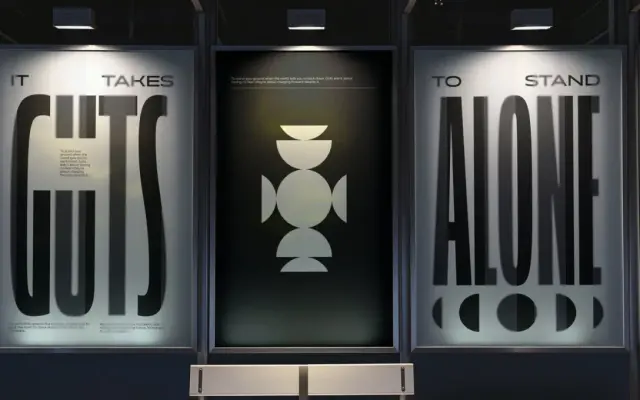
Muller Next
A large geometric sans-serif system spanning nine width variants and twelve weights, available as a variable font.
Spanning Compressed to Ultra Wide across twelve weights from Hairline to Fat, the family totals 218 styles with matching italics throughout. A variable font option covers the full range in two files, making it practical for responsive work. The scale is its main selling point, though the letterforms themselves are functional rather than distinctive.
Muller Next is a geometric sans-serif with a large width axis spanning Compressed through Ultra Wide, consistent with the clean, neutrally structured letterforms typical of the geometric grotesque tradition.